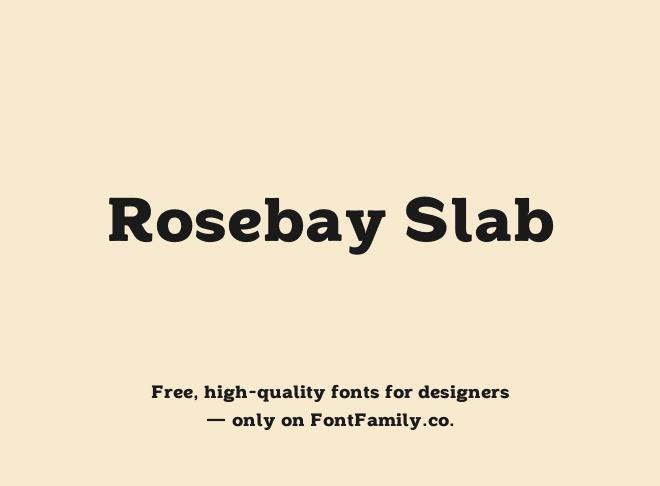
Rosebay Slab Font
Rosebay Slab Font is a unique serif typeface with a rustic and retro touch. Designed by Foundry Co. in 2020, this bold typeface boasts an authentic, handcrafted feel. It has a strong visual impact with its heavy slab serifs and bold strokes, making it perfect for display purposes. Rosebay Slab Font is reminiscent of vintage typography and can add a nostalgic charm to any design. It's an ideal choice for logos, headlines, posters, and any project that requires a distinctive and robust typeface. Its open font license makes it accessible for both personal and commercial use. With Rosebay Slab Font, designers can add a touch of retro boldness to their creations, making them stand out and leave a lasting impression.